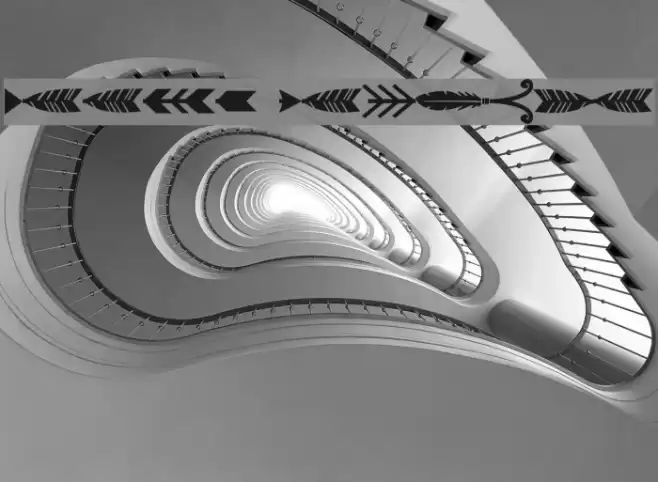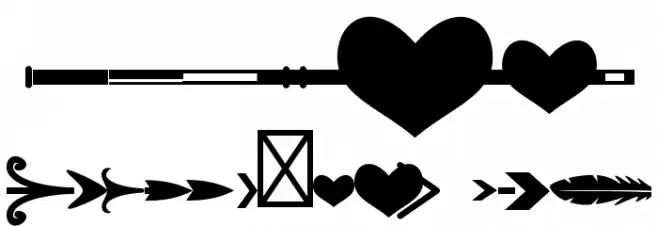
Arrow Crafter Font
Arrow Crafter Description
This is not a traditional font but a collection of decorative arrow designs. Each row features a variety of arrow styles, incorporating elements like hearts, feathers, and geometric shapes. The designs are bold and intricate, suitable for decorative purposes rather than text. The arrows vary in complexity, with some featuring detailed patterns and others maintaining a more simplistic form. These elements are ideal for adding a whimsical or rustic touch to design projects, particularly those with a romantic or adventurous theme.
A collection of decorative arrow designs with intricate and bold elements from Dingbats fonts.
- Proposed Projects: Ideal for use in wedding invitations, scrapbooking, logo design, or any project requiring decorative borders or embellishments.
- Use Case: Decorative elements, Borders, Embellishments